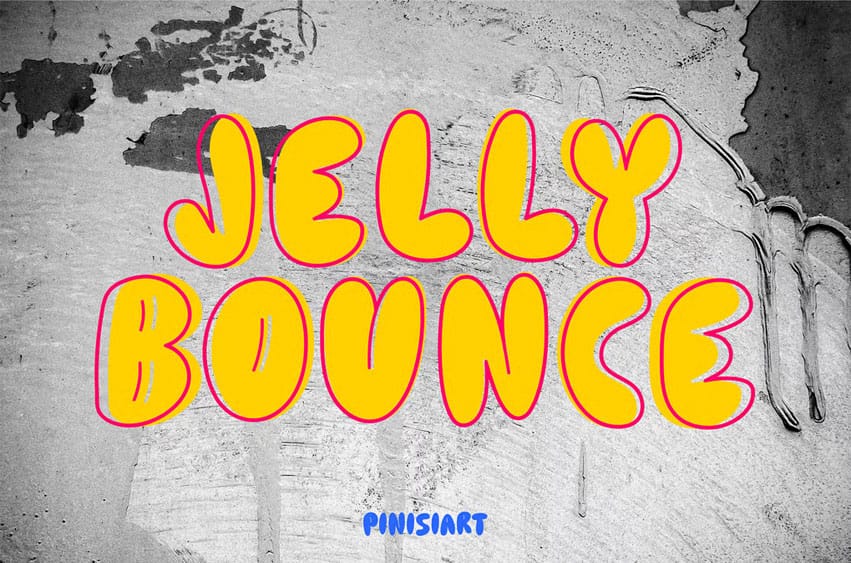
Jelly Bounce Font is a chunky, rebellious bubble font that oozes attitude and demands attention. Inspired by street art, underground train stations, and neon taglines, this font is your go-to tool for graffiti graphics, fashion branding, or any loud, youth-driven campaign. It comes in regular, outline, and combo styles so you can layer up and bounce your message off the wall—literally.
Its organic bounce, uneven rhythm, and fat-letter charm bring a burst of personality into any design. Whether you’re crafting a streetwear label, spray-can label, edgy poster, or a rebellious ad campaign, Jelly Bounce has your back (and your wall).
- Bold bubble form with raw street energy
- Includes Outline + Regular for layer-ready combos
- All-caps design for max impact
- Great for posters, album covers, graffiti brands, and fashion drops